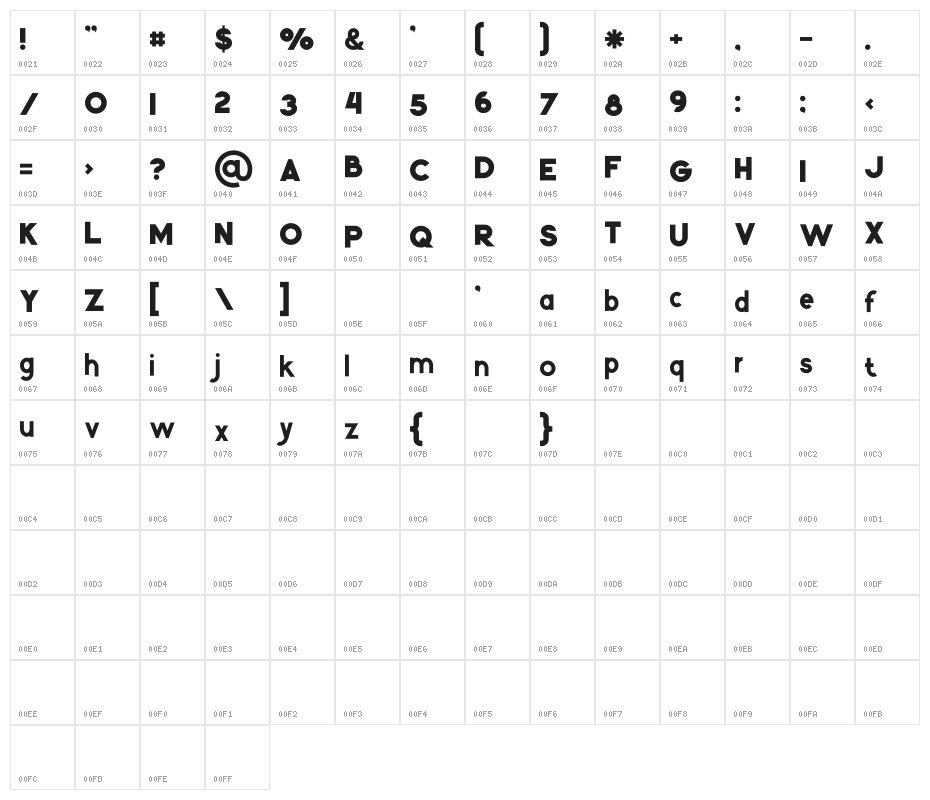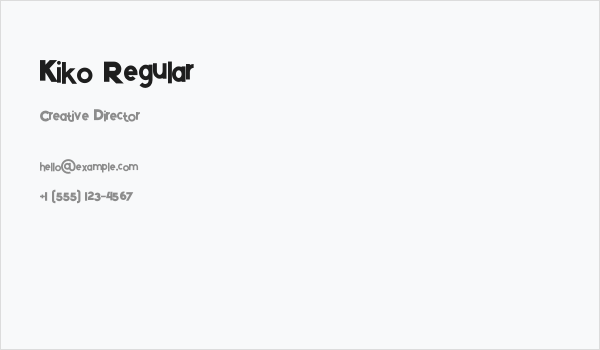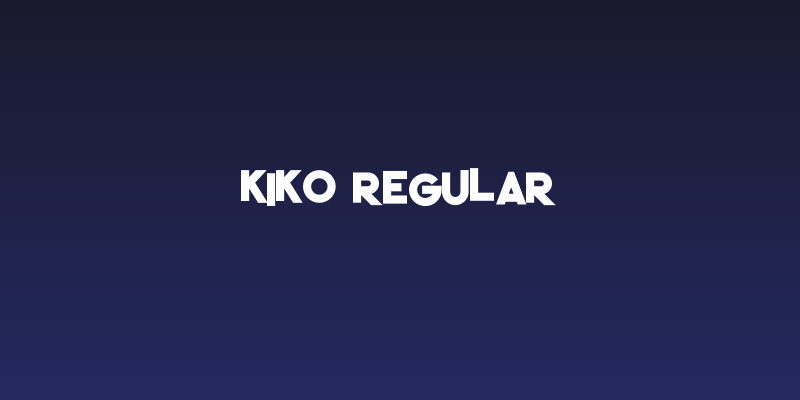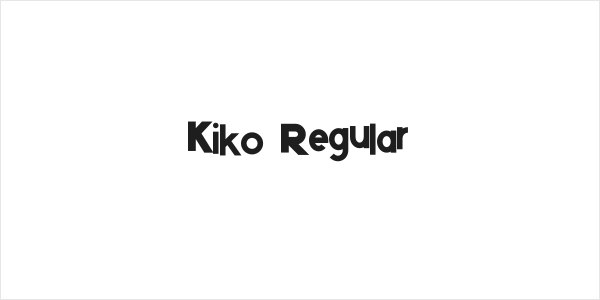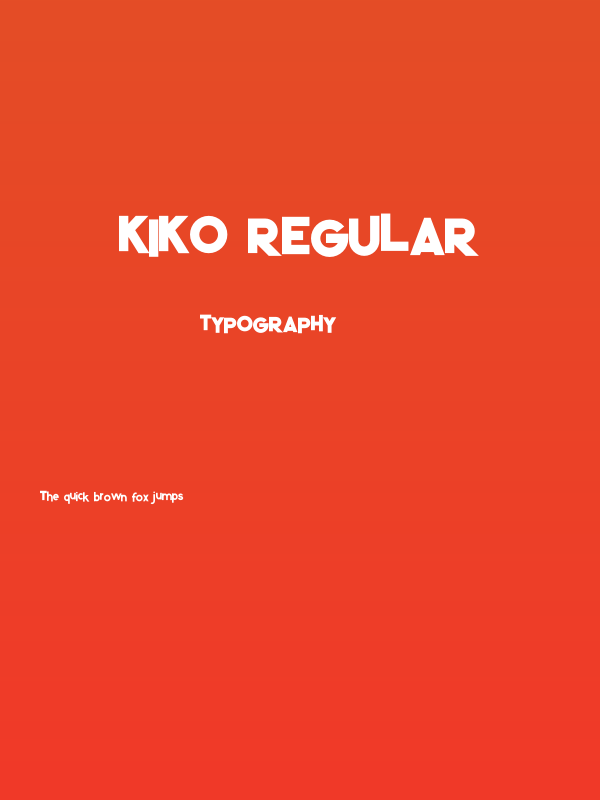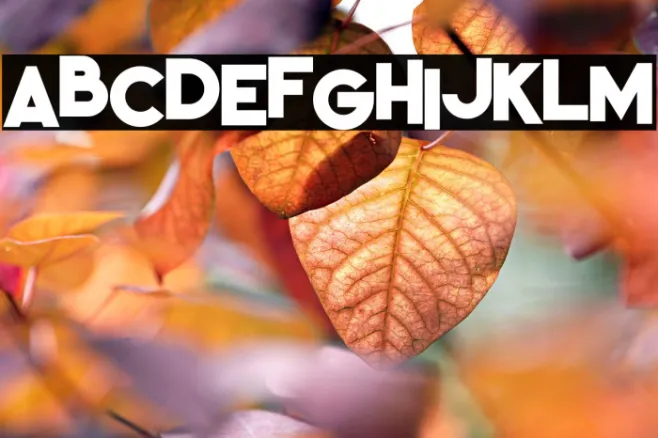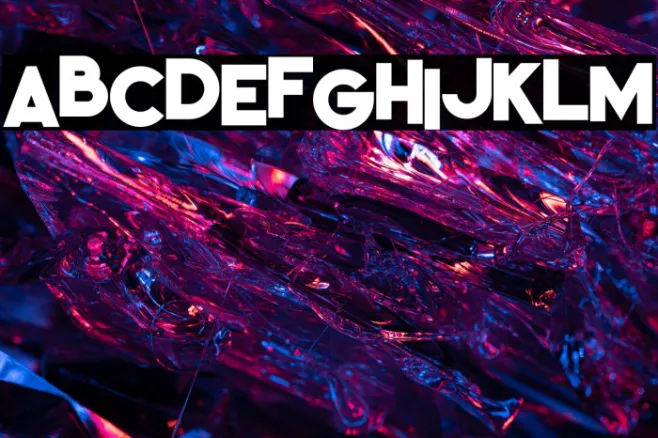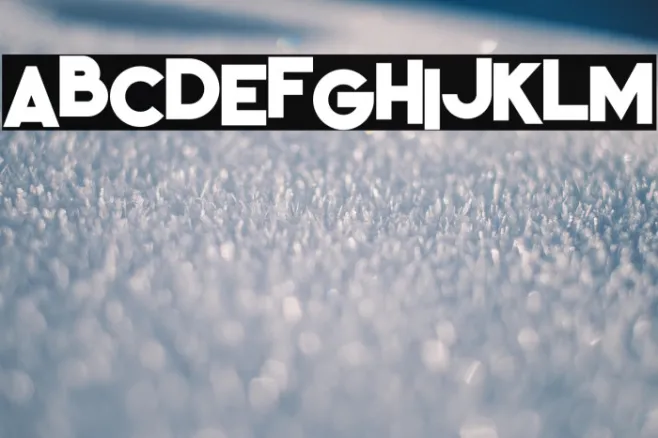
Kiko Regular Font
Kiko Regular Description
This font features a bold and geometric design with clean lines and a modern aesthetic. The uppercase letters are strong and impactful, while the lowercase letters maintain a consistent roundness that adds a touch of softness. The numerals are equally bold, ensuring visibility and clarity. The special characters are well-integrated, maintaining the overall style of the font. Its uniform stroke width and lack of serifs contribute to a contemporary and sleek appearance, making it suitable for a variety of design applications.